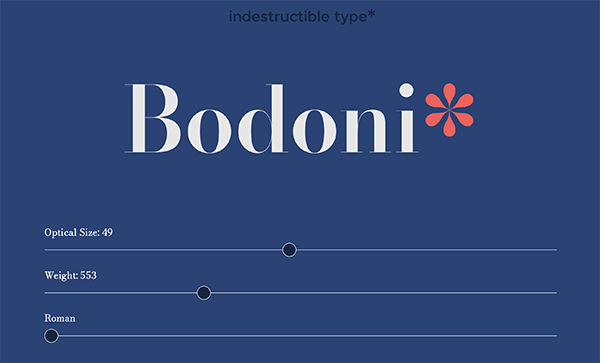
Some Great Places to Find Free—and Legal!—Fonts
Type lovers on a budget can find high-quality fonts at no cost.
Maybe you’re new to InDesign (or to design in general) and you’re looking for ways to extend your design power without spending more money. Maybe you’re an experienced designer looking for more typographic oomph.
We thought it would be a good service to give you a decently comprehensive list of where you can get some good fonts—and not just for free, but legitimately so. These fonts that are offered by their designers and developers without strings—some simply for love of craft, others for promotion, still others dangled as carrots to get you to license comprehensive type families.
Adobe Fonts
Newbies might not fully realize that part of the value of Adobe’s subscription plans includes access to a growing font library. Formerly known as Typekit, Adobe Fonts lets you activate fonts that you can use in any of your applications.
And if you want to be pedantic, the Adobe Fonts are not free per se—they are a benefit of your paid subscription—but you can turn them on and off at will and have them available immediately. That sure makes them feel free!
Some caveats:
/wp:paragraph –>- If you let your subscription plan lapse, you will lose all access to all these fonts.
- Nothing in the software world is permanent! Companies providing the fonts to Adobe can come and go. In 2020, Font Bureau ended its relationship with Adobe Fonts, removing access to 50 or so type families and hundreds of fonts, but the company did offer some pretty hefty discounts on its products and services for those affected.
- There is no way to include these fonts for a printer in InDesign’s Package command. That sounds alarming, but think of it this way: They will be embedded in PDFs, and if a vendor needs to open your InDesign file, they will also have access to Adobe Fonts. If you are archiving a project to ensure that someone will be able to open your file years later with all the necessary resources in one folder, you might consider not using Adobe Fonts in your document.
Most Adobe commercial subscription plans, including the full subscription and single application plans, offer access to a library of more than 20,000 fonts. Trial subscriptions and some enterprise and academic accounts have access to what Adobe terms its “basic library” — a core collection of 1,700 fonts.
Font Squirrel
It is easy to find ample high-quality resources for even the most frugal labors of love on Font Squirrel, which offers a selection of more than 1,400 high-quality free fonts that is more discerning than you will find in other free repositories online.
The site, with a great search function and a tool to convert these fonts for web development, comes courtesy of Fontspring, which represents a number of smaller foundries.
Google Fonts
What happens when Google wants to get into fonts? Like so much that happens with this behemoth of a company, Google Fonts offerings—almost 1,300 type families—are vast, uneven, super searchable, and free to the end user, with a very white and minimal interface. You will find some uneven and lackluster type there amid really nice work.
New designers will appreciate the Pairings tab on the Google Fonts site, where you can see and try out other fonts in the collection that pair nicely with the one you’re exploring. Adobe Fonts offers a similar function.
Font Space and DaFont
Usually I think of sites like Font Space—a free font site with 84,000 files—as a disaster. But what sets Font Space apart from its peers like DaFont is its attention to licensing issues and its search interface.
The well-known free font site DaFont describes itself as “either freeware, shareware, demo versions or public domain.” But its biggest strength—almost 62,000 fonts in its archives—is its biggest vulnerability.
Many of the fonts on both these sites are old—some really old—and links to the contact information and websites for designers often dead (or redirecting to porn). Quality varies wildly; for every really nicely drawn, evenly spaced font, there will seemingly be 50 amateurish handwriting fonts distracting you from quality. And when you get demo fonts, you’ll likely find they’re missing some of the glyphs, like the hyphen or the apostrophe, which is just what you need if you’re on deadline.
There are times when you simply need an oddball font. Font Space makes that search quicker and lets you very easily search only for fonts for which commercial licensing is available. But when you need a font of glyphs of, say, Dominoes, you can find it there—except it’s licensed for personal use only, and contact links for its pseudonymous author are broken.